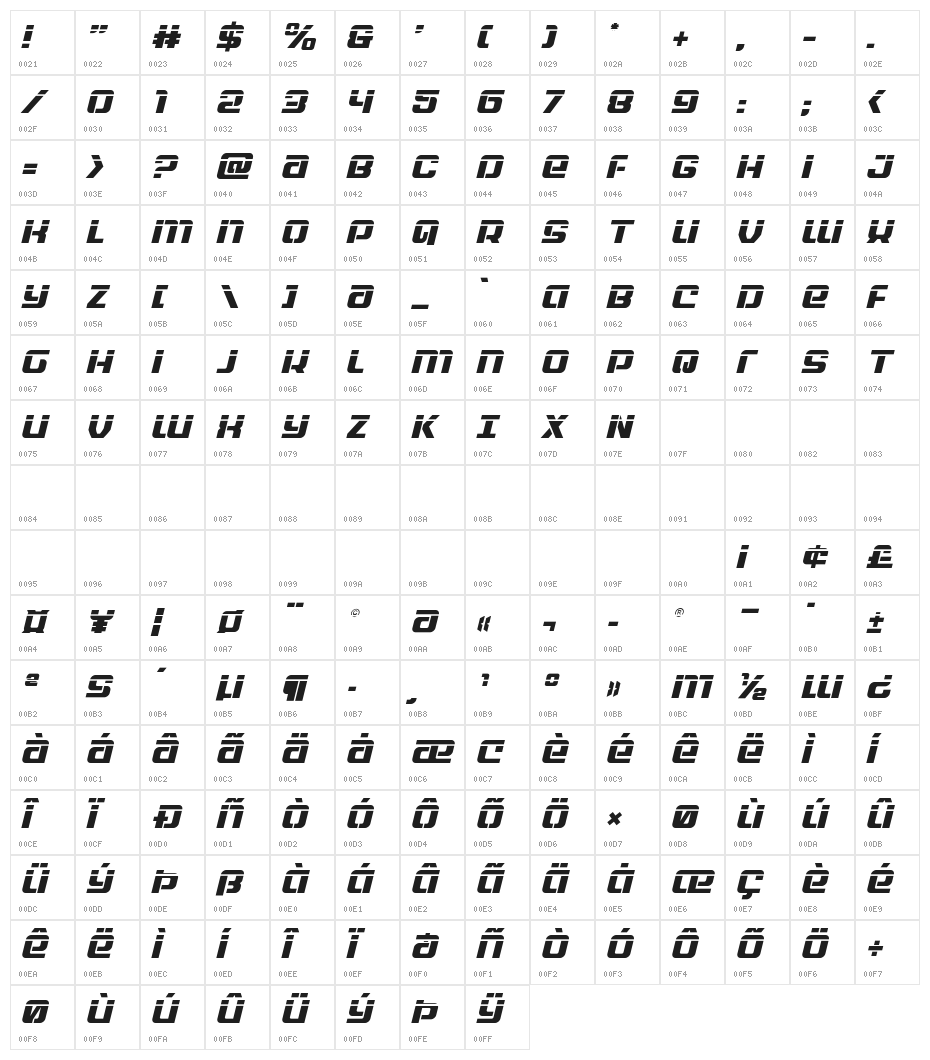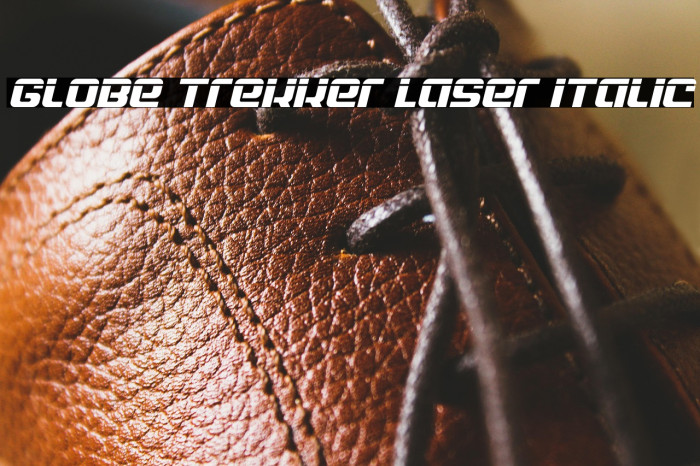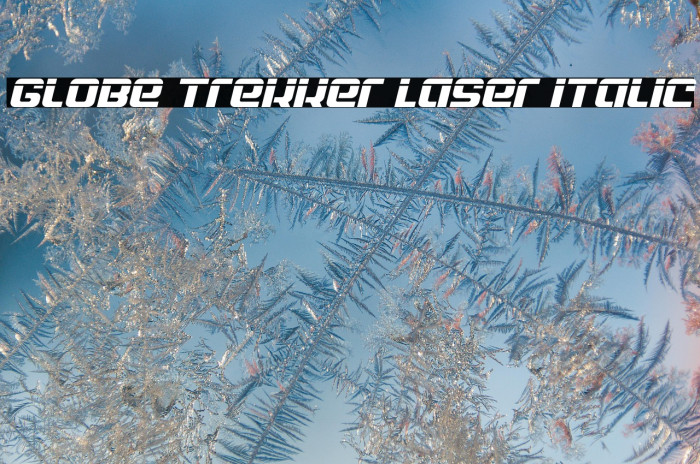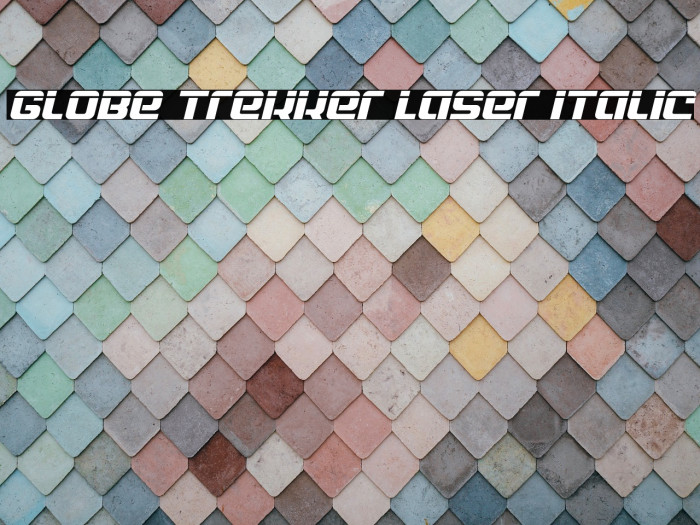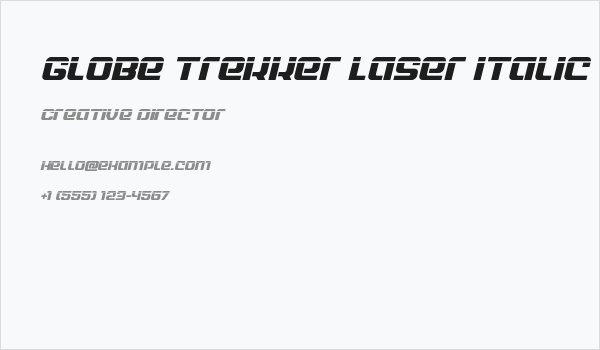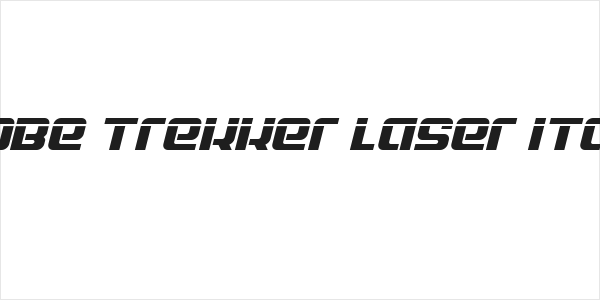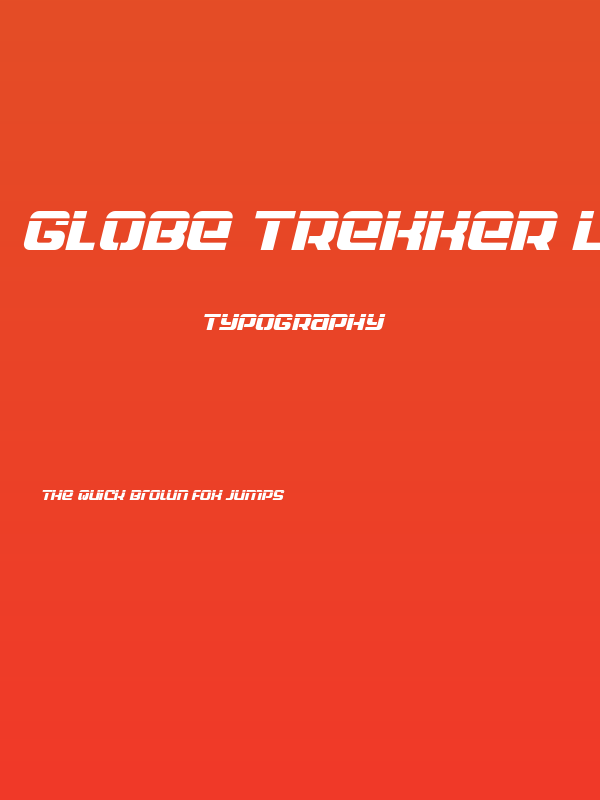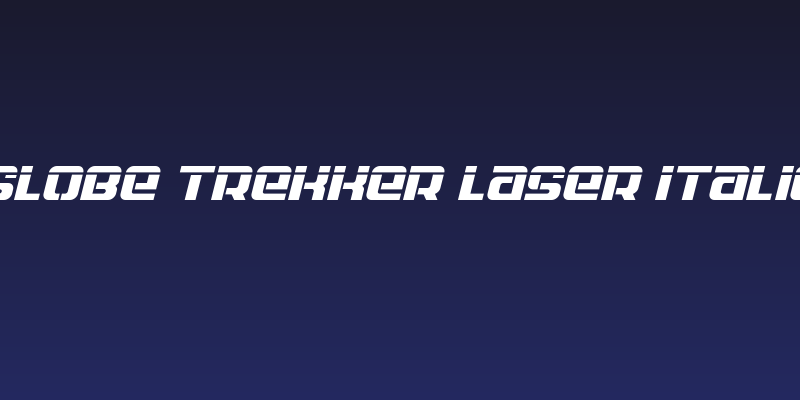
Globe Trekker Laser Italic Font
Globe Trekker Laser Italic Description
This font features a bold, futuristic design with a distinct italic slant, giving it a dynamic and forward-moving appearance. The characters are wide and blocky, with sharp angles and a consistent stroke width that conveys strength and modernity. The uppercase and lowercase letters maintain a uniform style, enhancing readability while retaining a unique aesthetic. The numerals and special characters are designed to match the boldness and angularity of the alphabet, making the font versatile for various applications. Its geometric structure and slanted orientation make it ideal for projects that require a contemporary and energetic look.